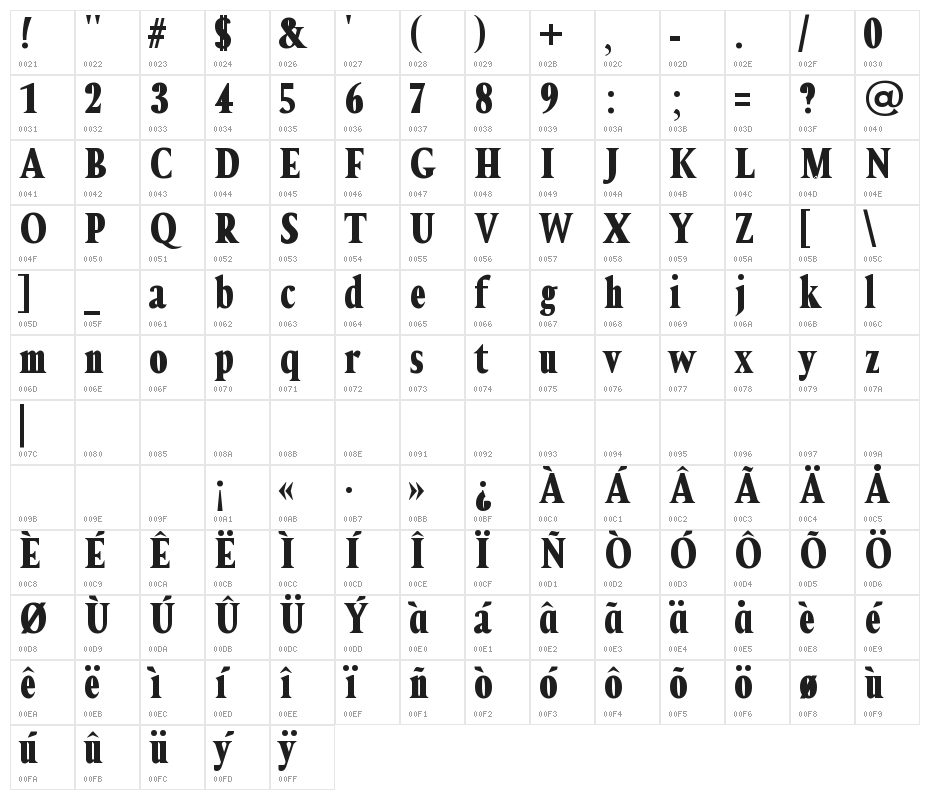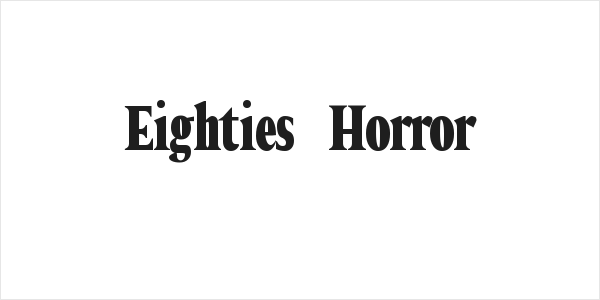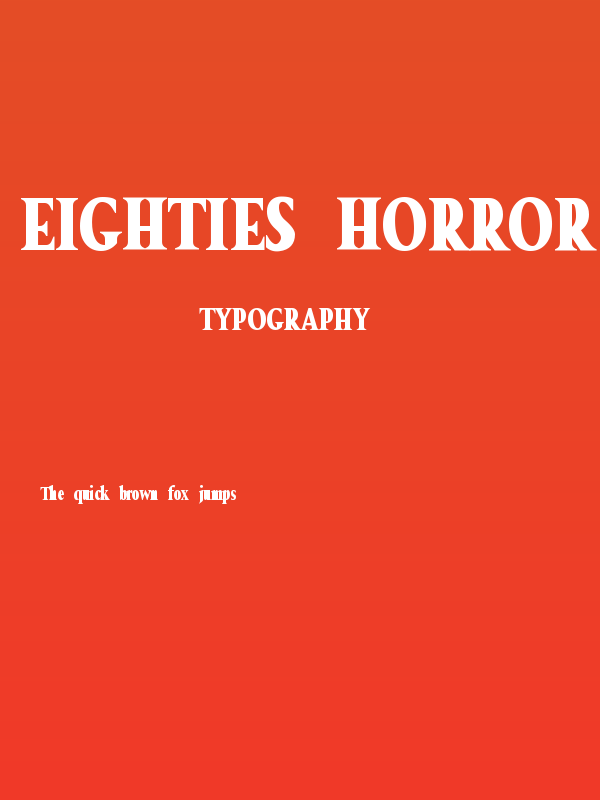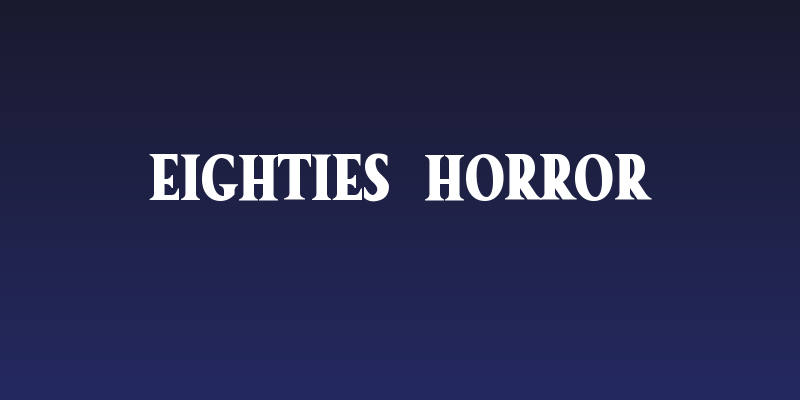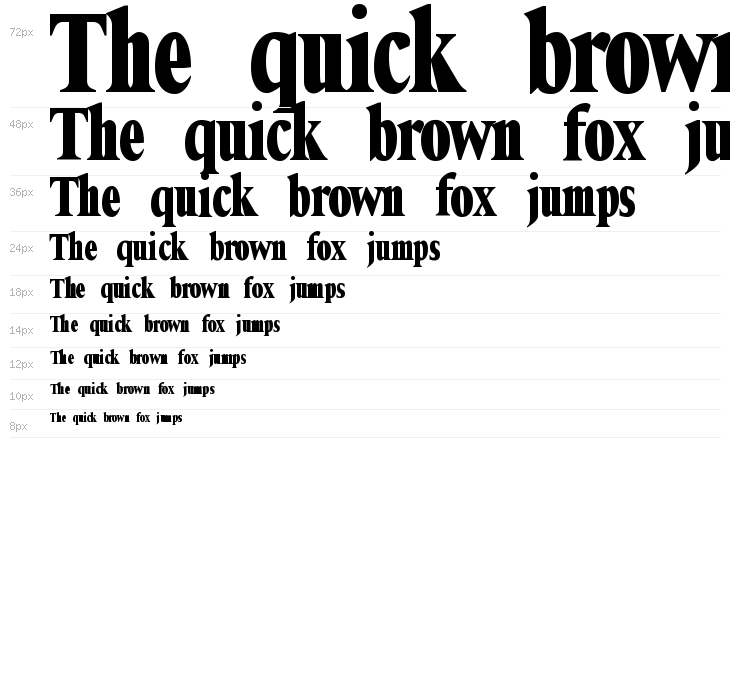
Eighties Horror Font
Eighties Horror Description
This font exudes a bold and dramatic presence, reminiscent of classic horror movie posters from the 1980s. The characters are thick and heavy, with sharp serifs that add a sense of intensity and urgency. The uppercase letters are particularly striking, with a strong vertical emphasis and slightly condensed forms that enhance their imposing nature. The lowercase letters maintain the same boldness, ensuring consistency across text. Numbers and special characters are equally robust, making them suitable for impactful headlines or titles. The overall design is both nostalgic and eye-catching, perfect for projects that require a touch of retro horror flair.
Overall StyleVintage
Proposed ProjectsPerfect for horror movie posters, Halloween event flyers, retro-themed designs, and book covers.